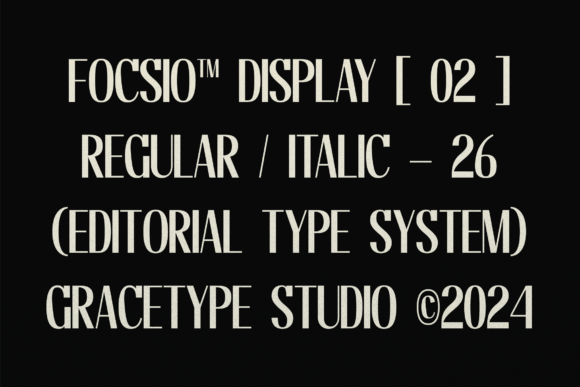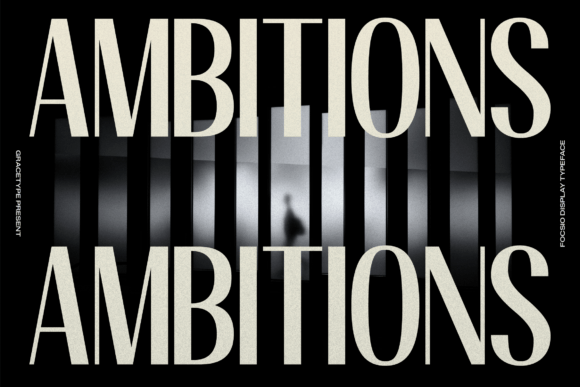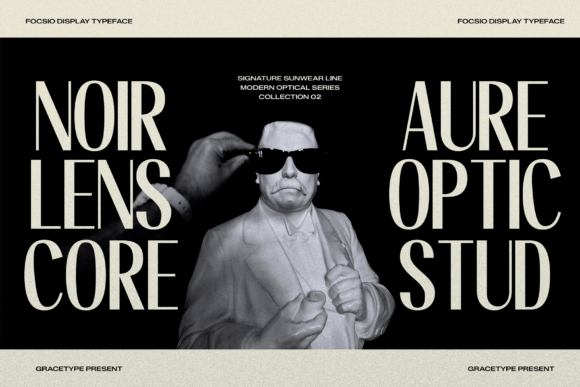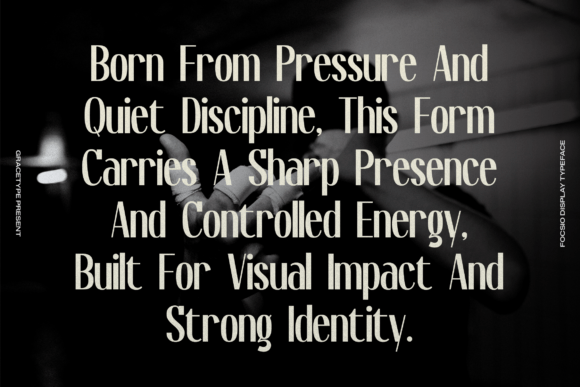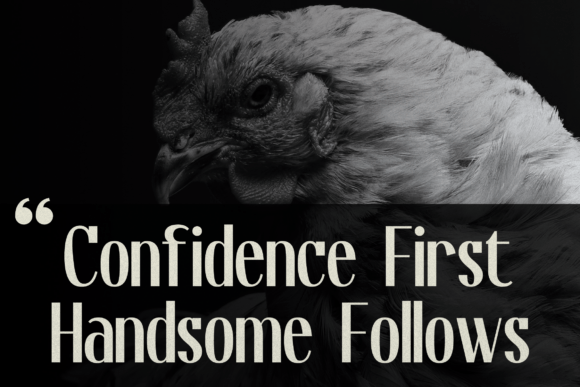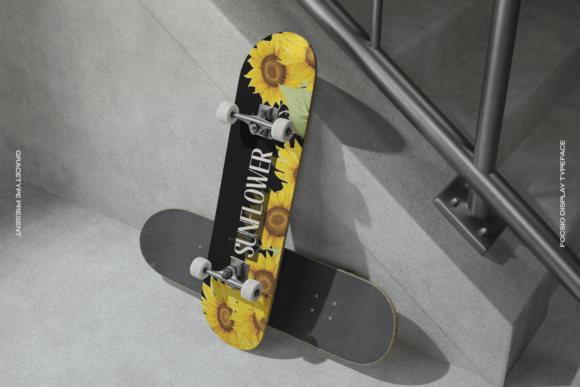
Introduction to Focsio Font Font
Fonts play a crucial role in design, and the Focsio Font font is a typeface that brings both character and versatility to any project. Whether you’re working on a branding project, a website, or a print design, the Focsio Font font offers a unique style that can elevate your work.
Focsio: A Bold Display Typeface Elevate your visual impact with Focsio, a bold display typeface.
This font masterfully blends high-fashion editorial elegance with modern geometric precision Characterized by its towering x-height, condensed silhouette, and sharp, high-contrast serifs, Focsio radiates a sense of sophisticated authority and timeless style.
Key Features of Focsio Font Font
Why Choose Focsio Font Font?
The Focsio Font font is more than just a typeface – it’s a design tool that helps you communicate your message with style and clarity. Its unique character set and versatile design make it suitable for a wide range of applications, from elegant invitations to bold headlines.
With its carefully crafted letterforms and balanced proportions, the Focsio Font font ensures readability and visual appeal across all mediums.
What makes Focsio Font font special?
The Focsio Font font stands out with its unique design, exceptional readability, and versatility across various design applications.